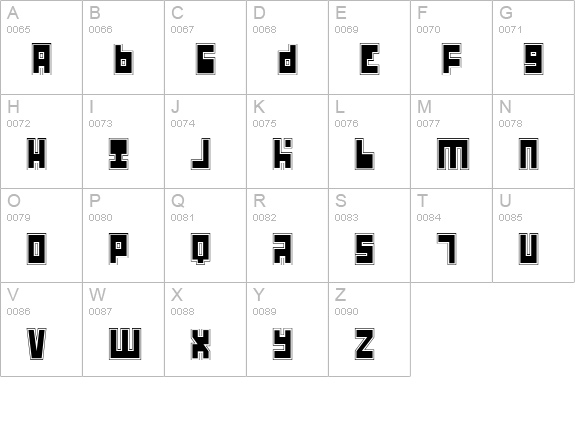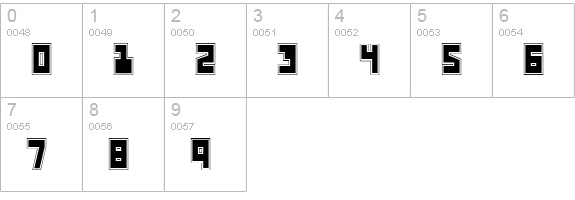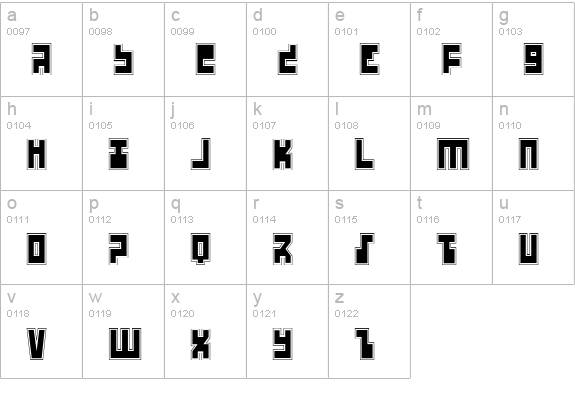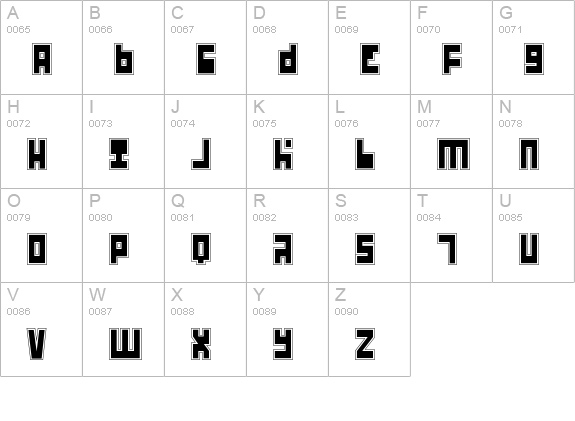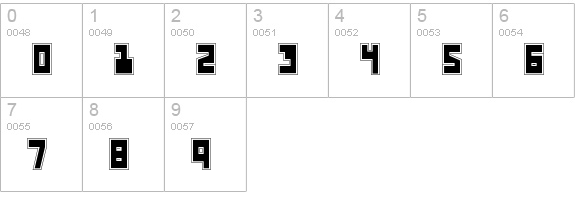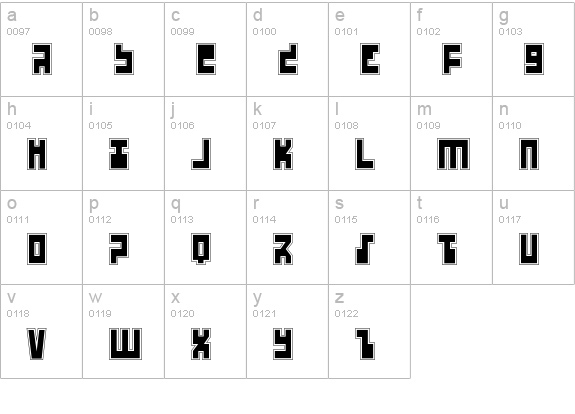
Discover the otherworldly beauty of UFO Hunter Academy font, a captivating typeface that will transport your designs to a realm beyond imagination. This unique font combines futuristic elements with a touch of mystery, making it perfect for projects that aim to stand out from the ordinary. UFO Hunter Academy font is not just visually striking, but also versatile and easy to read, making it suitable for a wide range of design applications. Whether you're working on a sci-fi poster, an event flyer, or a digital art project, this font will add a touch of extraterrestrial charm to your work. The best part is that UFO Hunter Academy font is completely free to download at FontsMarket.com. So don't miss out on the opportunity to elevate your designs with this mesmerizing font that is sure to leave a lasting impression on your audience. Download it today and let your creativity take flight into the unknown!